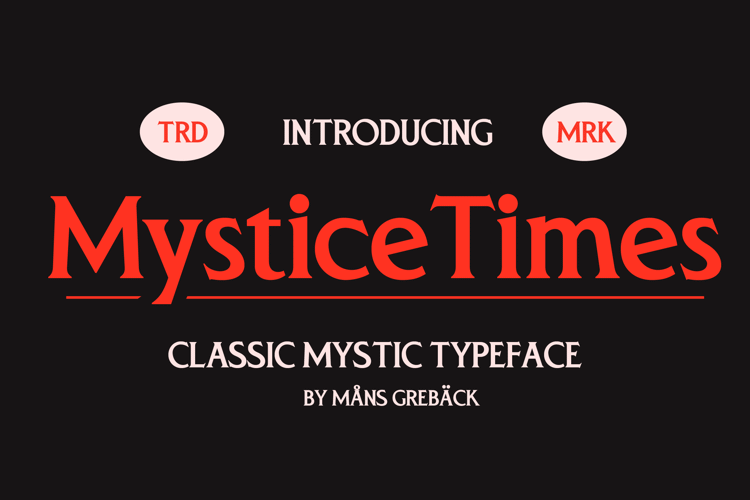
Mystice Times Font
About Mystice Times Font
Channeling the enchanting ambiance of 80s thriller movies, Mystice Times echoes tales of mystery wrapped in professionalism.
Its characters, though rooted in the cinematic charm of yesteryears, are tinged with an unpredictable, slightly eccentric flair.